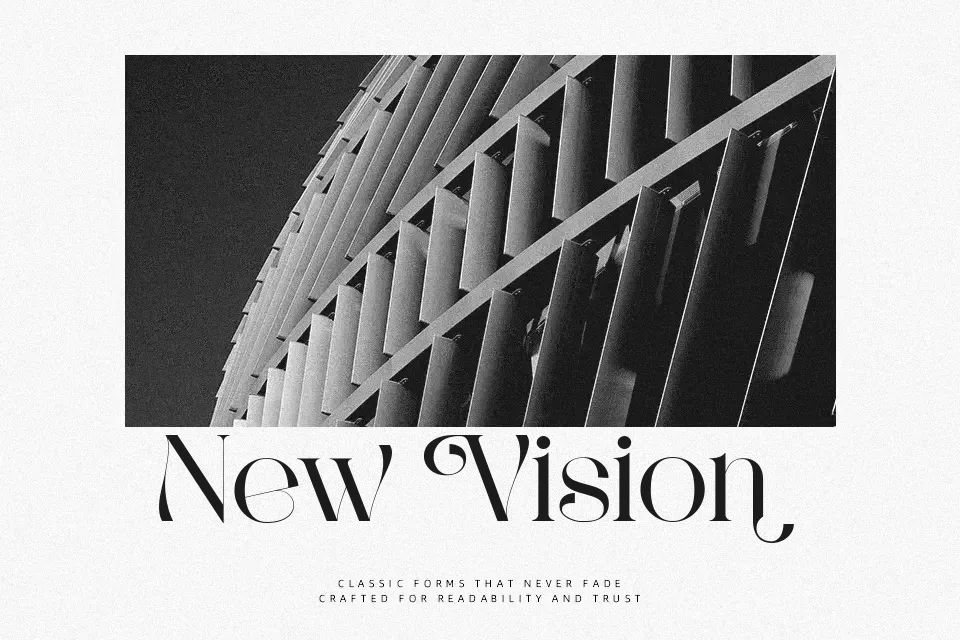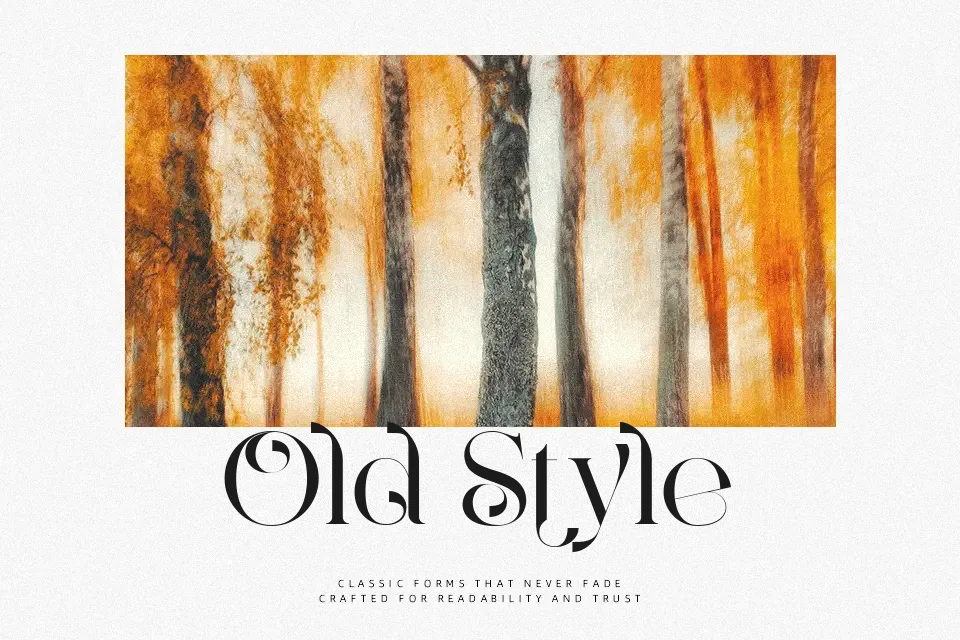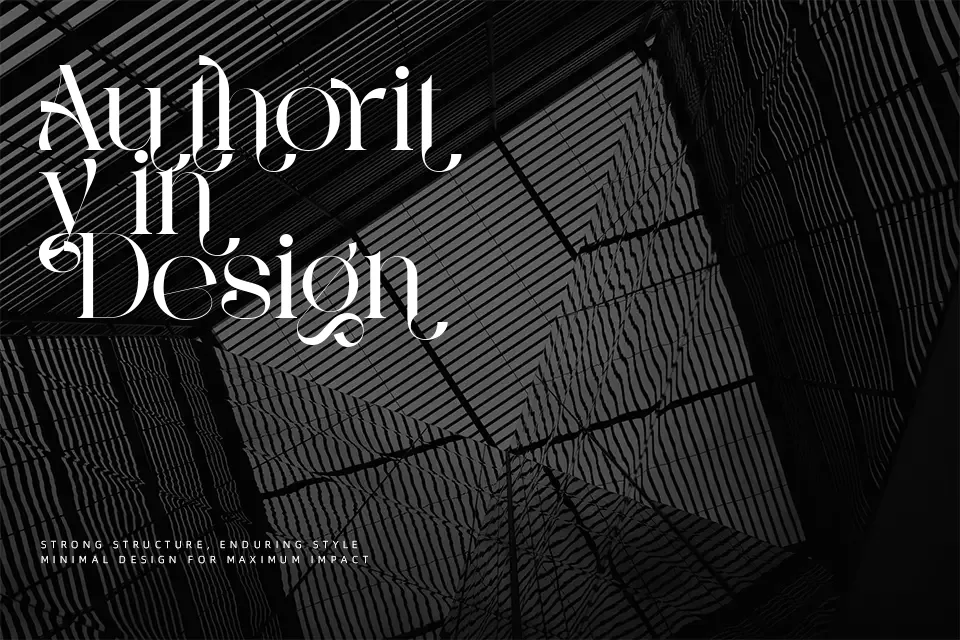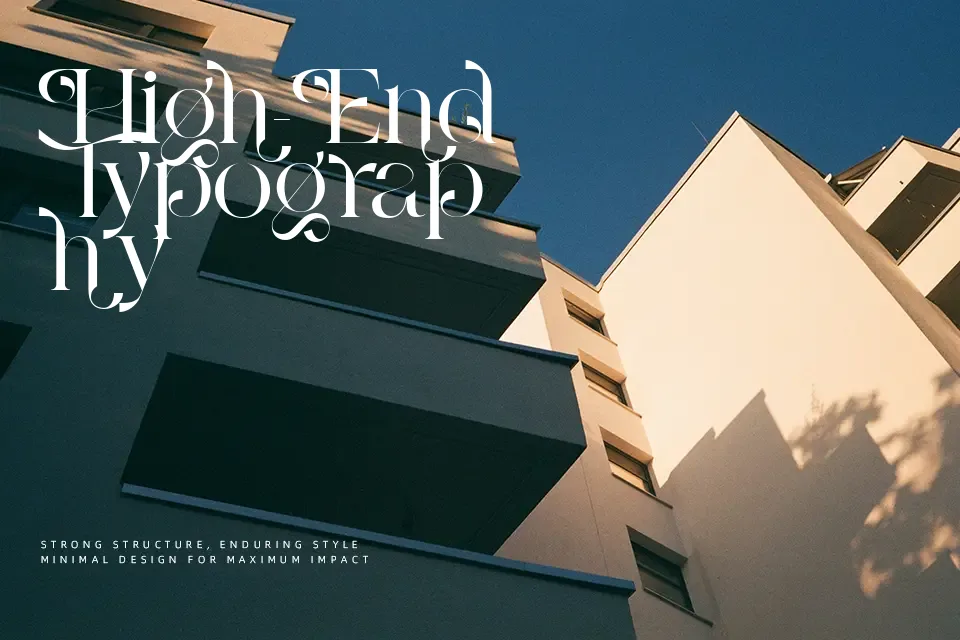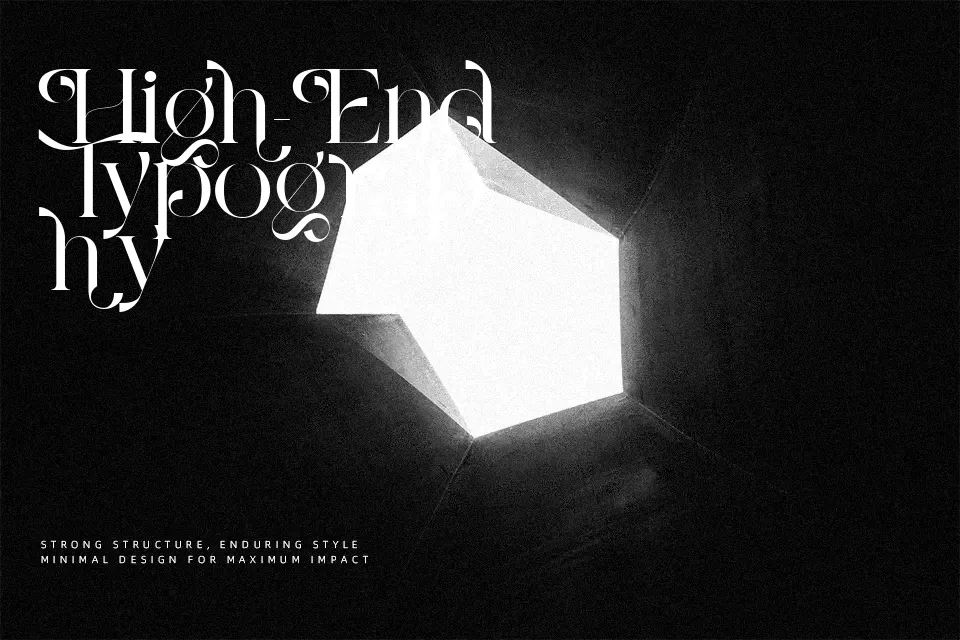
Citation Font
Citation Font features sculpted serif details, moderate stroke contrast, and distinctive vintage curves across its uppercase and lowercase letterforms. The character spacing is comfortably balanced for display settings, allowing the unique terminal shapes and structured proportions to establish clear visual rhythm. In practical application, the typeface delivers strong aesthetic presence across editorial covers, retro poster headers, and premium retail packaging. The letterforms retain reliable clarity in short headline arrangements where their decorative character can stand out. However, the stylized stroke transitions reduce comfort during continuous reading, making the design less suitable for dense body paragraphs or compact mobile interfaces.
Best For: vintage product packaging, luxury fashion branding, magazine cover headlines, boutique logos
Not Ideal For: continuous body text, mobile app interfaces, technical documentation, long editorial paragraphs
Perfect for branding, headline, and logo, with a classic and decorative style.